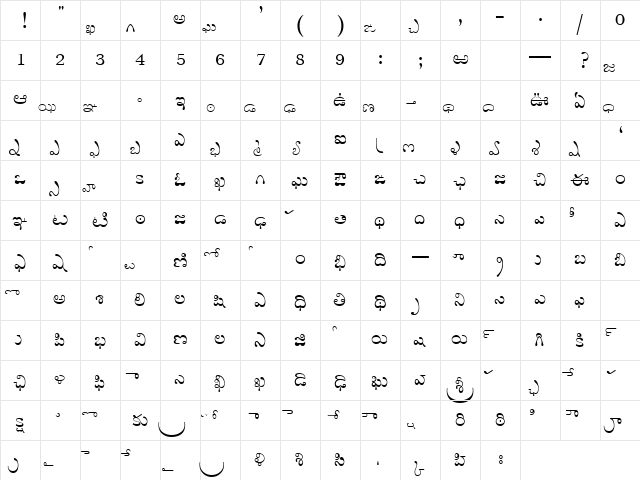
AkrutiTlgSudha Normal Font Preview
AkrutiTlgSudha Normal
Design Context for AkrutiTlgSudha Typeface
AkrutiTlgSudha is a composed and adaptable typeface that performs quietly and consistently across a wide range of design contexts.